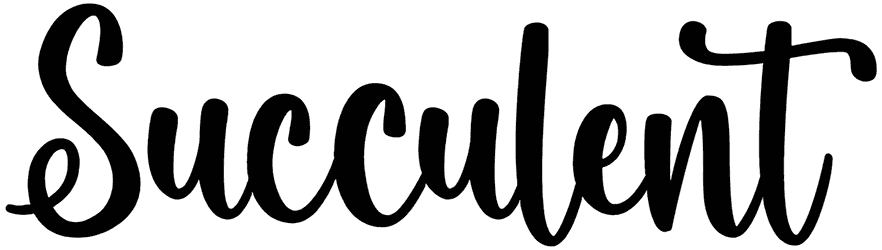
Succulent Font
Succulent is a wonderful addition to your design arsenal if you’ve been searching for a way to brighten up your work. This connected handwritten font may be used in any way you see fit, from logos and banners to blog headers and other branding materials.